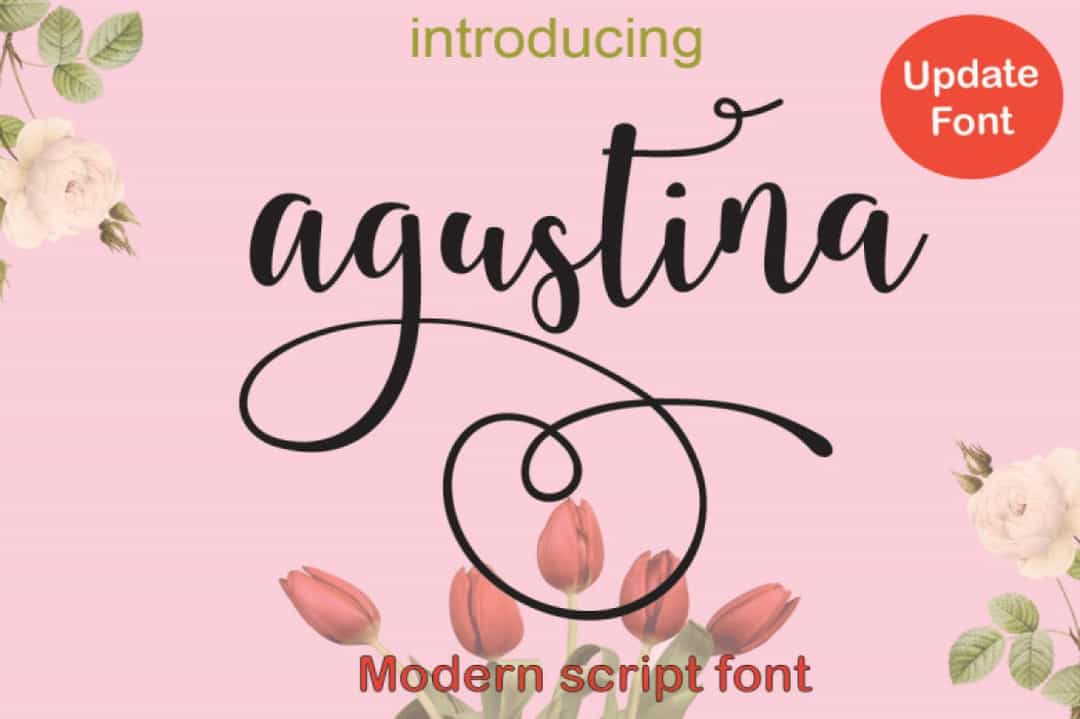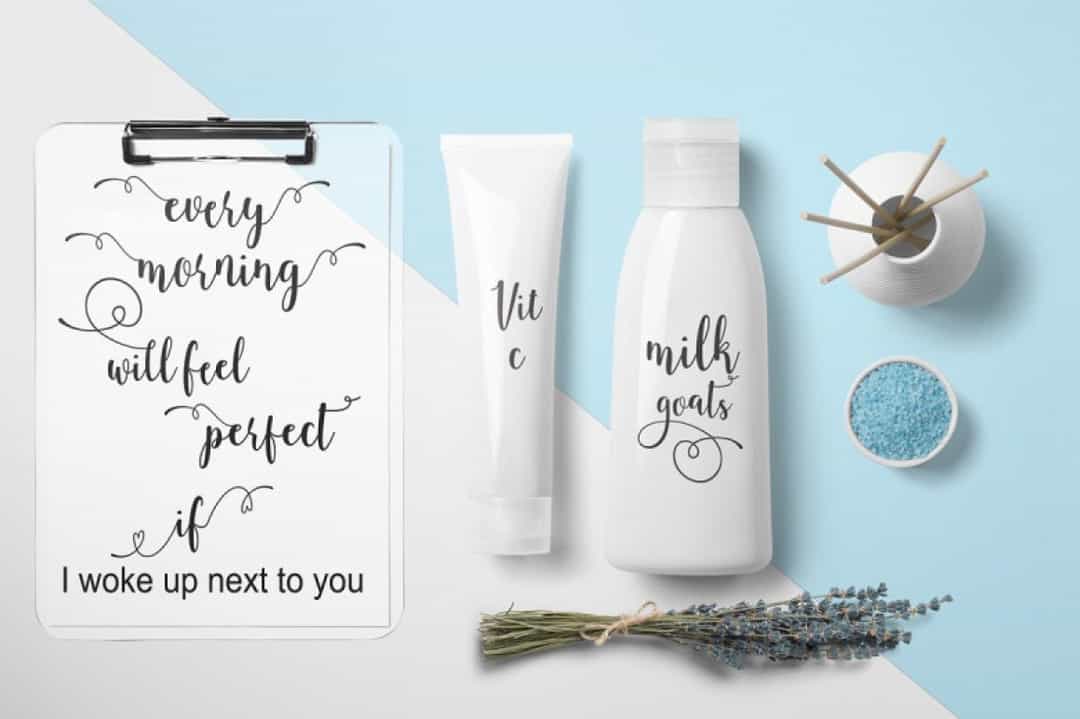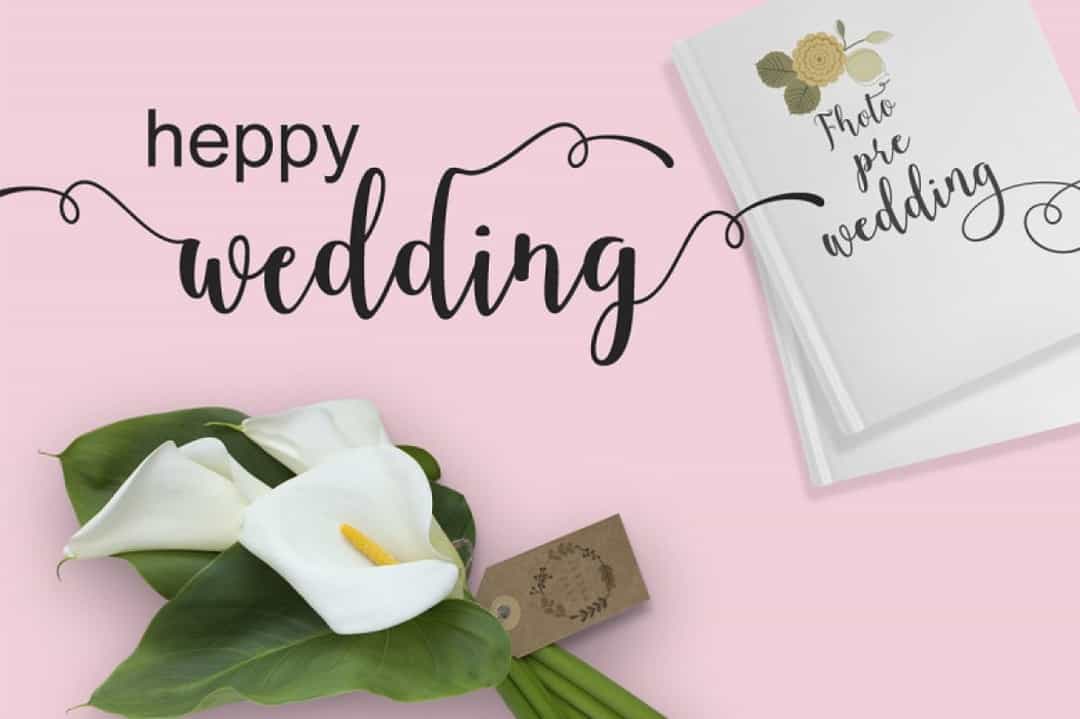
Discover Agustina Script Font, part of the Brush collection—a versatile and unique font perfect for adding a personal touch to your projects. Download it for free and enjoy crafting designs with style, from invitations to social media posts. This font is available exclusively for personal use, giving you the freedom to create without limits. Unlock your creativity with Agustina Script Font today!
Agustina Font is a calligraphy font with unique baseline, delicate touch, and stylish appearance. Useful for logos headings/drum, signatures, wedding invitations T-shirts, letter setter signage news labels, posters badges.